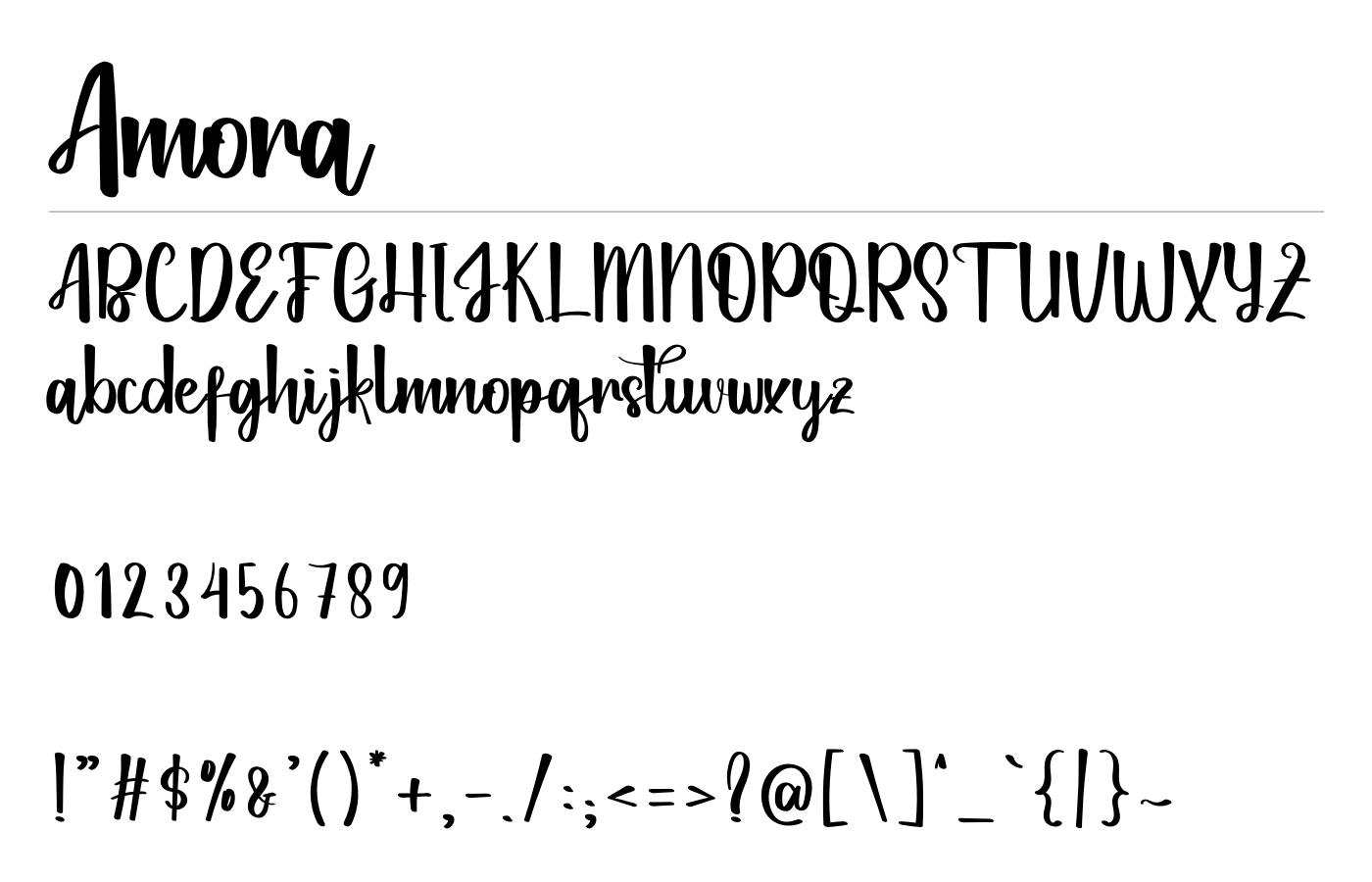
Amora is a playful and modern handwritten font with a casual, friendly vibe. Its tall, slightly condensed letterforms feature smooth, brush-like strokes and charming curves, making it perfect for creative projects, branding, and invitations that want to communicate warmth and personality. This font works well in headlines and display uses where a personal, inviting touch is desired.
Amora Font
About Amora Font